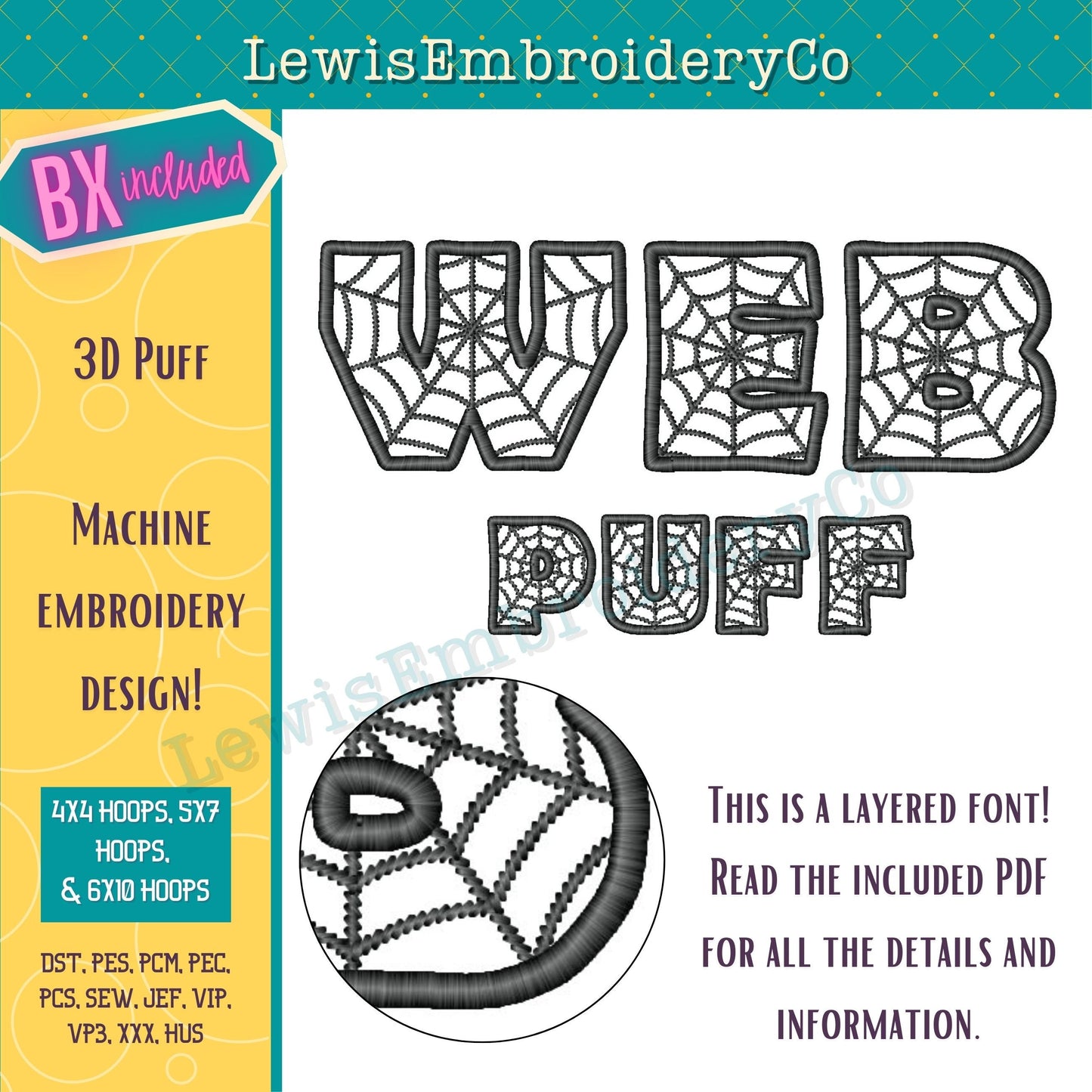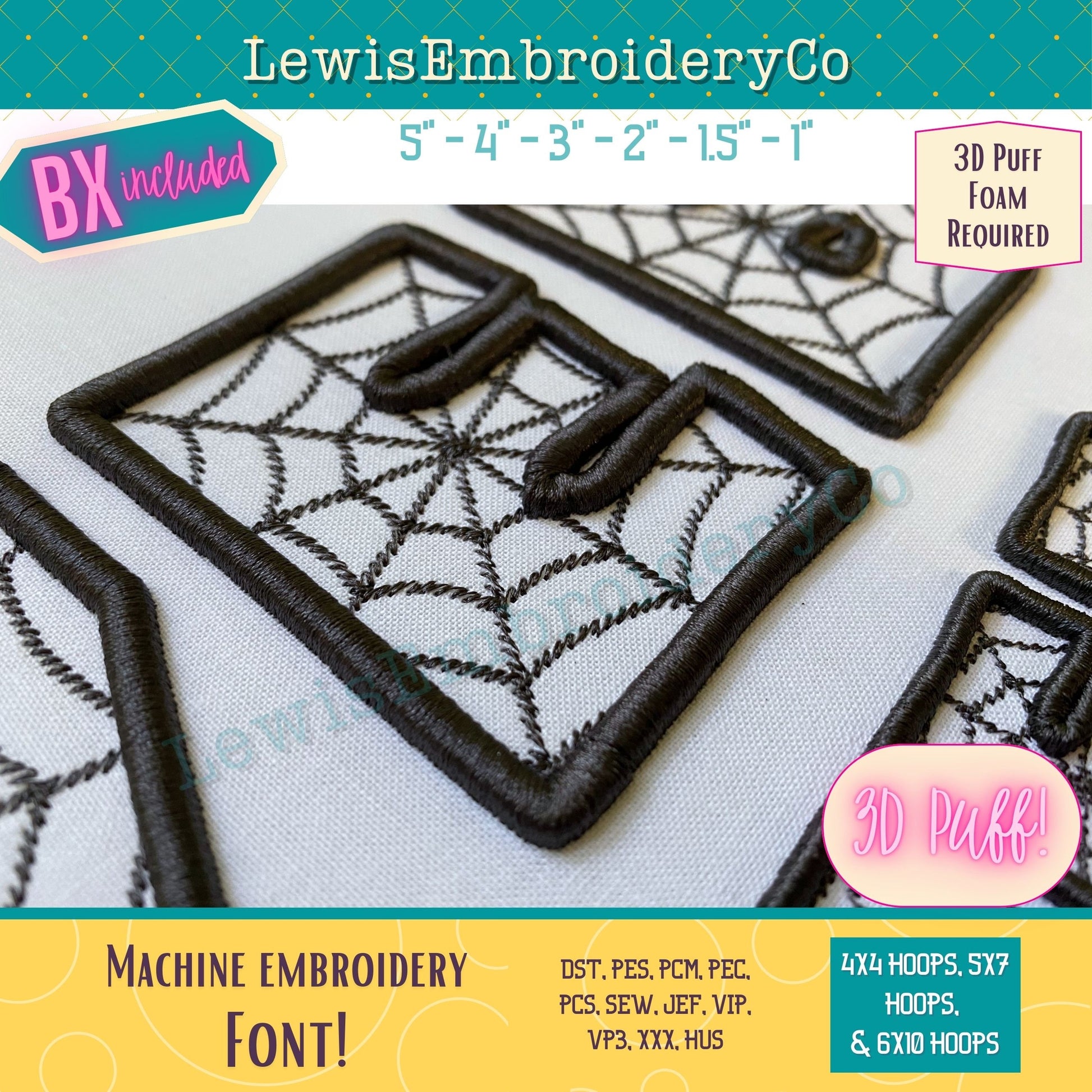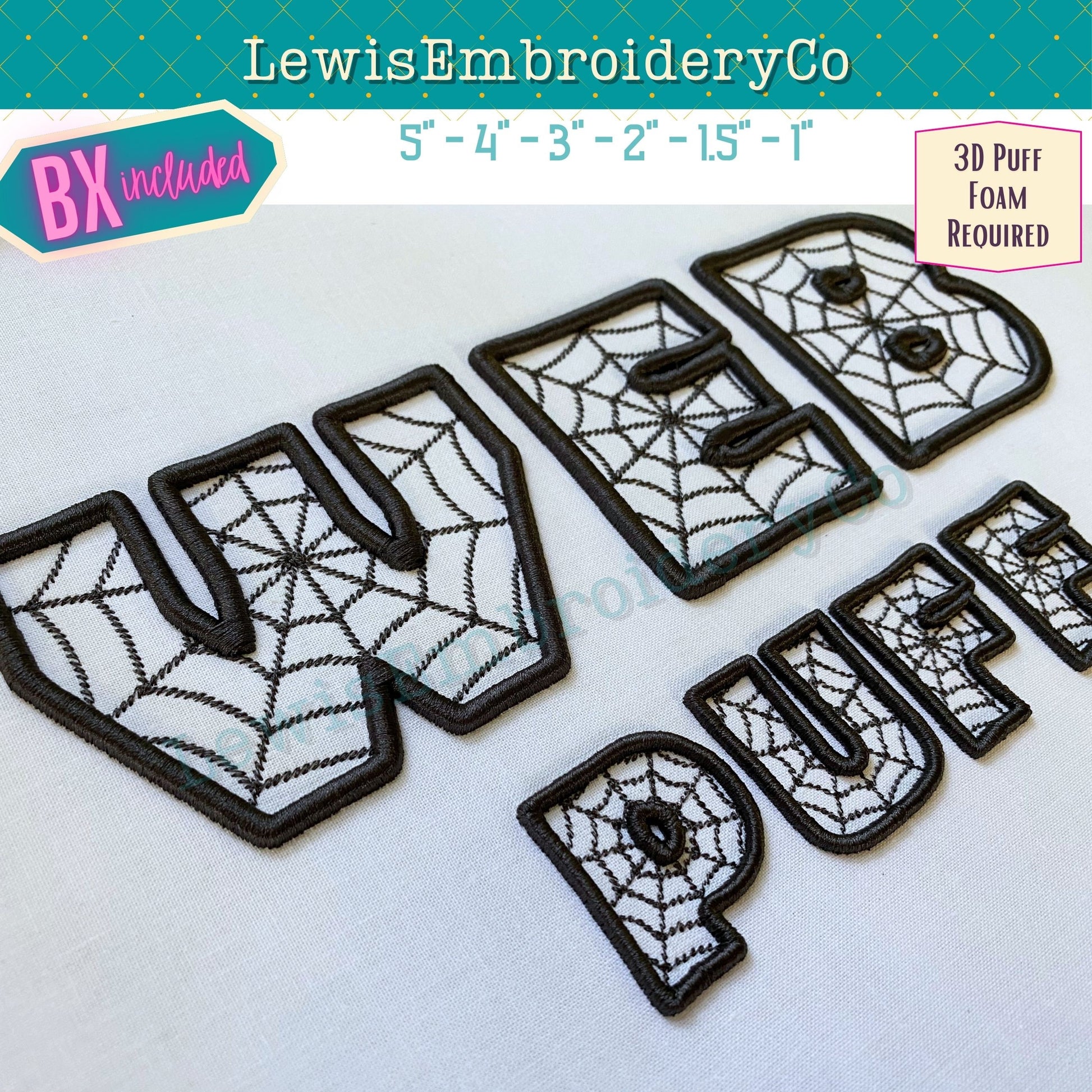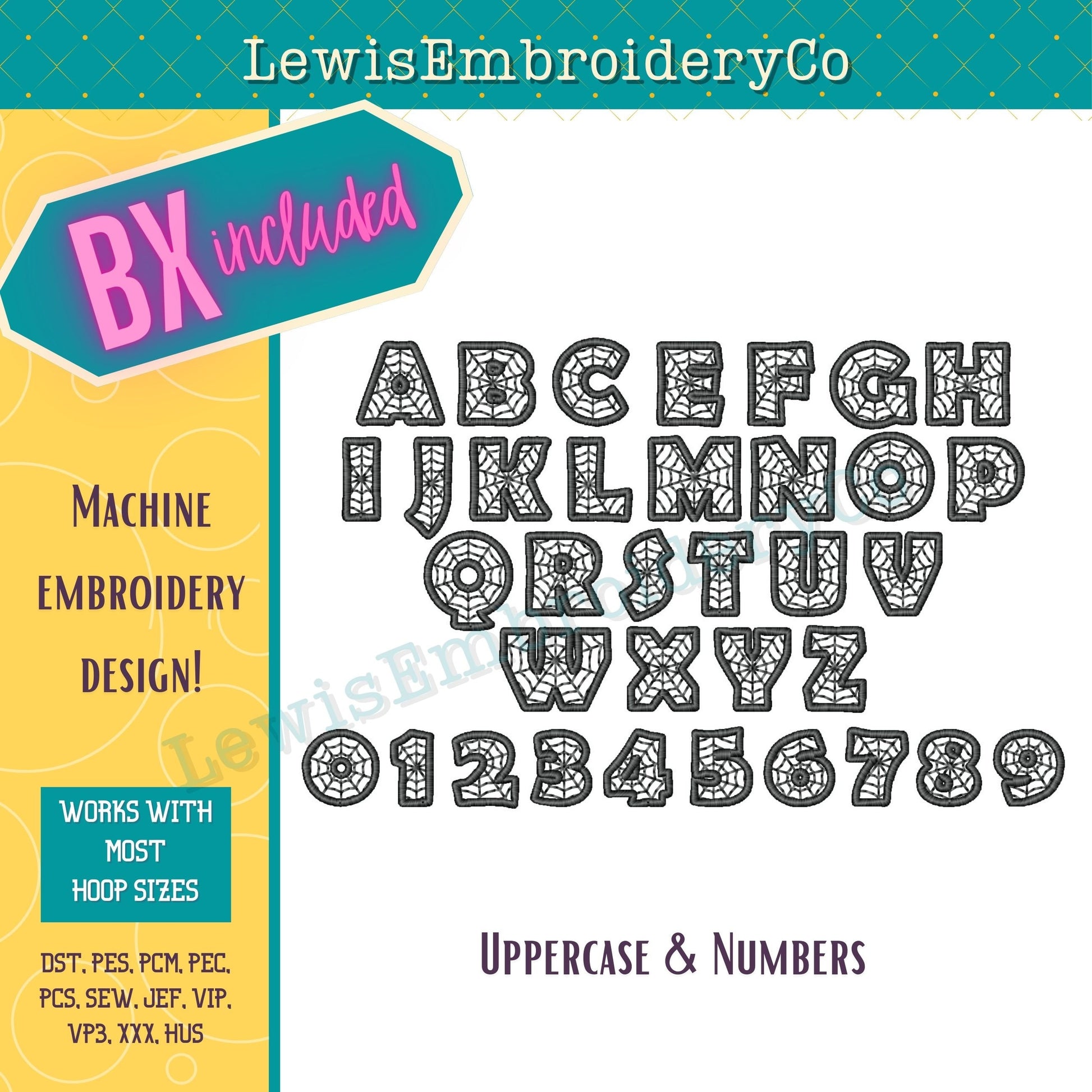
3D Puff Web, Machine Embroidery Font - With BX - (PDF Tutorial Included)
3D Puff Embroidery Outline Font - Web Embroidery Font - Puffy Foam Machine Embroidery - Halloween Embroidery - BX Font - Spider Web Font
This fun font will add a nice touch to any of your projects!